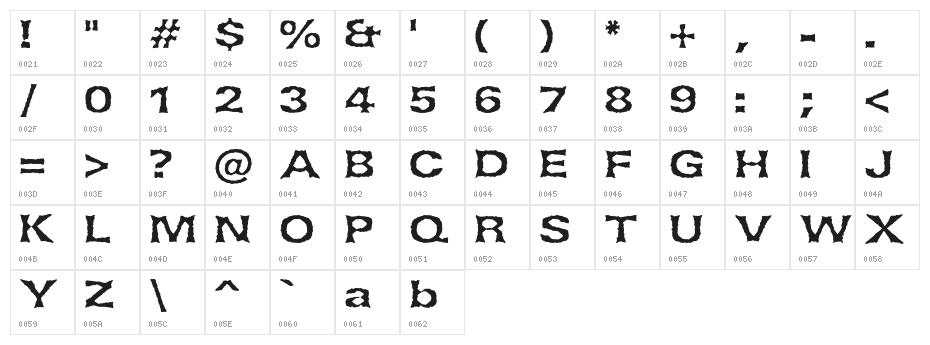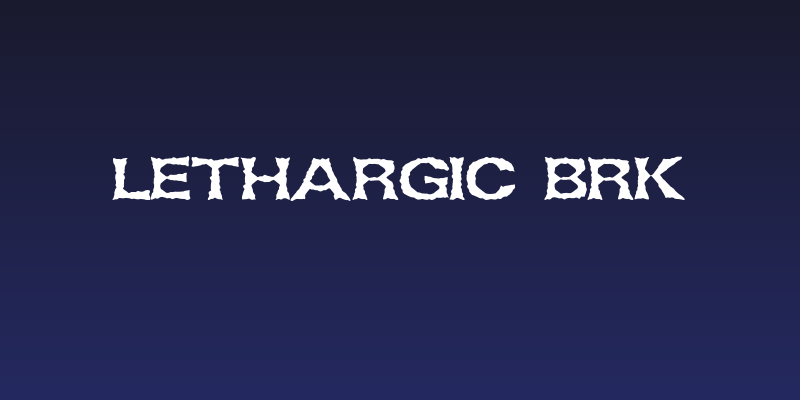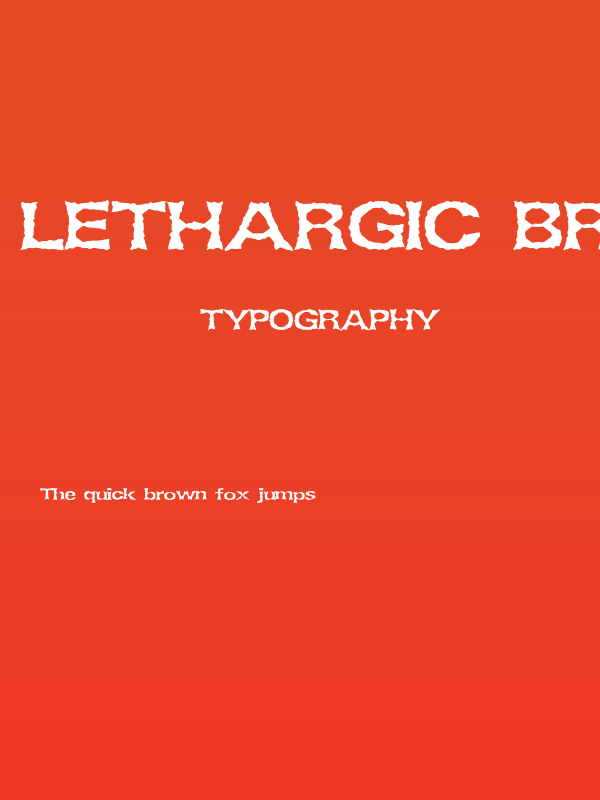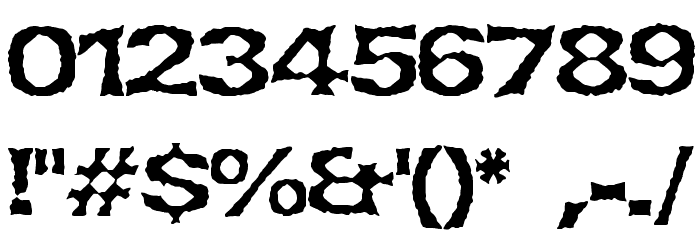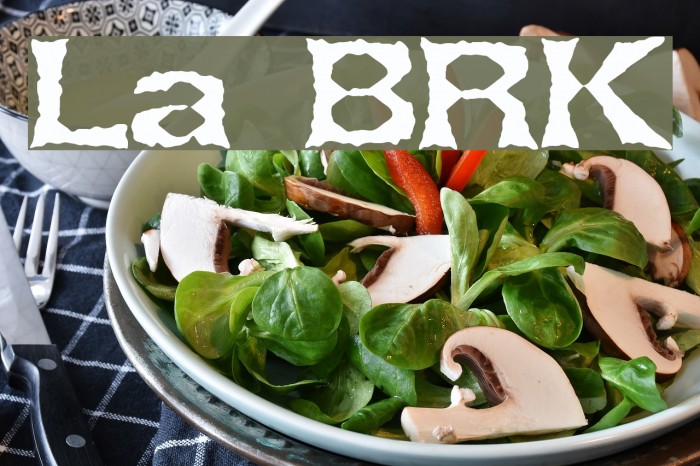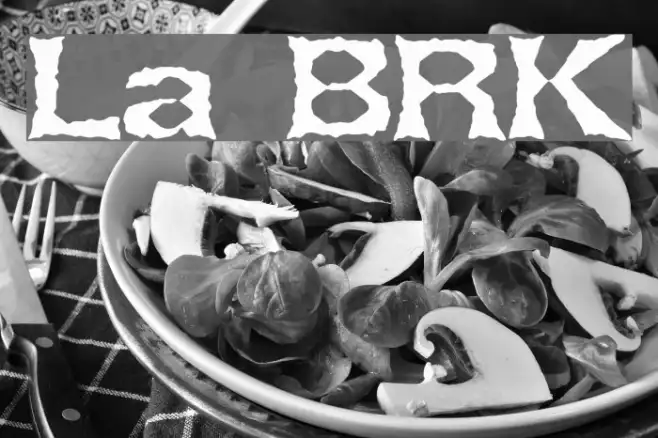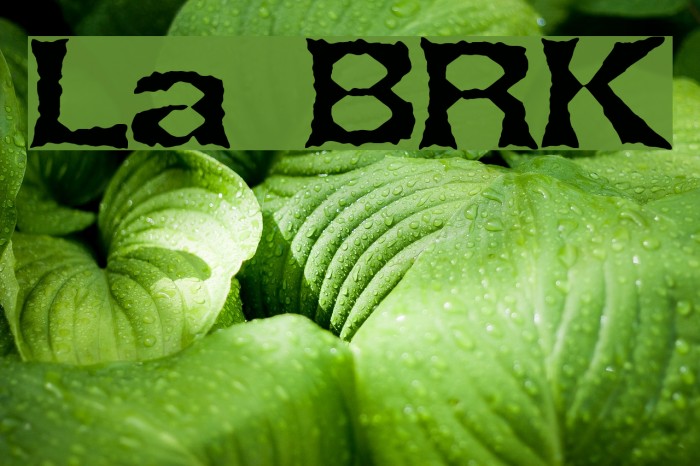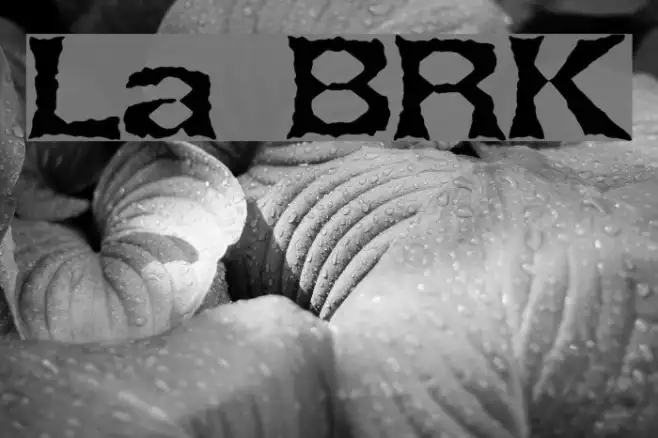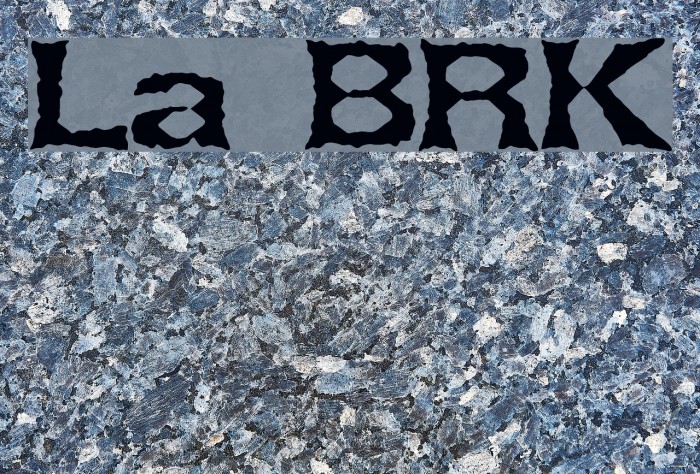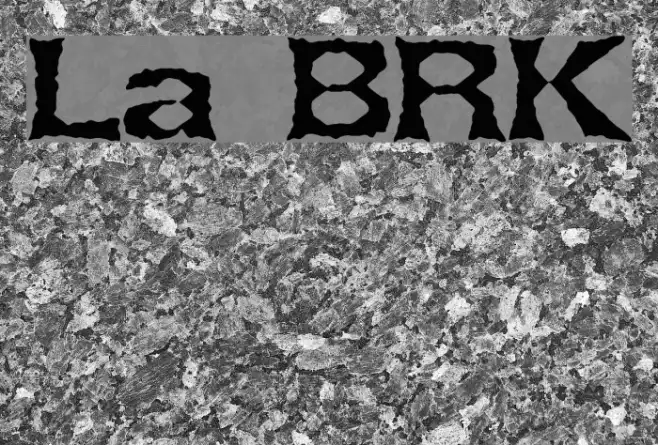
Lethargic BRK Font
Lethargic BRK Description
This font features a rugged, distressed appearance with irregular edges and a hand-drawn feel. The characters are bold and have a unique, jagged texture that gives them a dynamic and energetic look. The uppercase and lowercase letters maintain a consistent style, while the numbers and special characters complement the overall aesthetic. This font is ideal for projects that require a bold statement or a touch of grunge and edginess.
| Proposed Projects | Ideal for posters, album covers, branding for edgy products, or any design needing a bold, grunge aesthetic. |